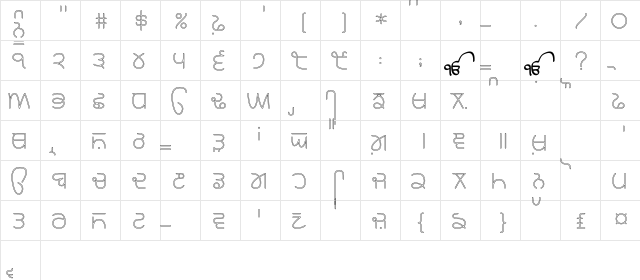
Rupe Outline 3 Light Short
| Foundry | Paul Alan Grosse |
| Designer | Paul Alan Grosse |
Design Context for Rupe Outline 3 Light Typeface
Rupe Outline 3 Light brings ornamental detail and strong personality to headlines and identities, where visual impact matters more than quiet functionality. Its slender proportions lend an understated elegance to any composition.
Font Pairing: Pair with a clean neutral sans-serif for body copy to let Rupe Outline 3 Light's character lead without overwhelming the composition.
Pro Tip: Use Rupe Outline 3 Light exclusively at display sizes — it was designed to be seen, not read at length. Let a neutral companion handle body copy.